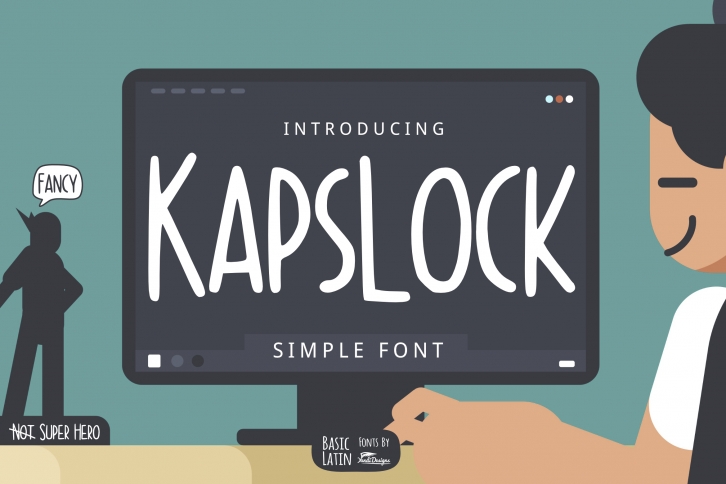
Kapslock Simple is a trendy and unique font with an authentic style. It was designed by YandiDesigns and it's a great choice for creative people who need such a font. It was released on October 16, 2019 and the file size is 8.70 MB. Kapslock Simple will add an organic vibe to any design idea!